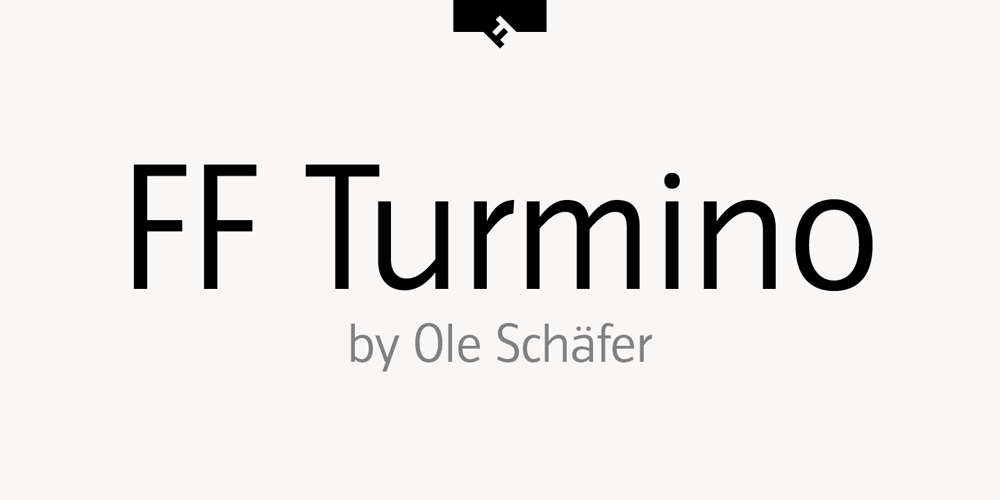
FF Turmino Font Family was designed by Ole Schäfer and published by FontFont. FF Turmino contains 6 styles and family package options. German type designer Ole Schäfer created this sans FontFont in 2002. The family has 6 weights, ranging from Light to Black and is ideally suited for advertising and packaging, editorial and publishing as well as sports. FF Turmino provides advanced typographical support with features such as ligatures, alternate characters, case-sensitive forms, fractions, super- and subscript characters, and stylistic alternates. It comes with a complete range of figure set options – oldstyle and lining figures, each in tabular and proportional widths.